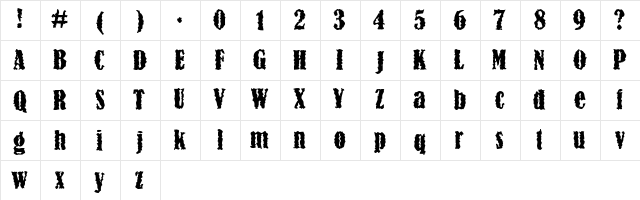
Myopia Regular
Design Context for Myopia Typeface
Myopia is a composed and adaptable typeface that performs quietly and consistently across a wide range of design contexts.